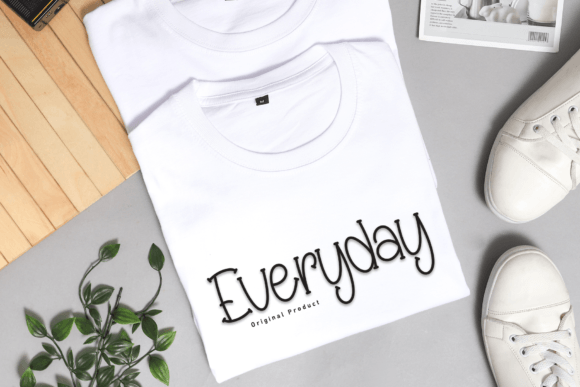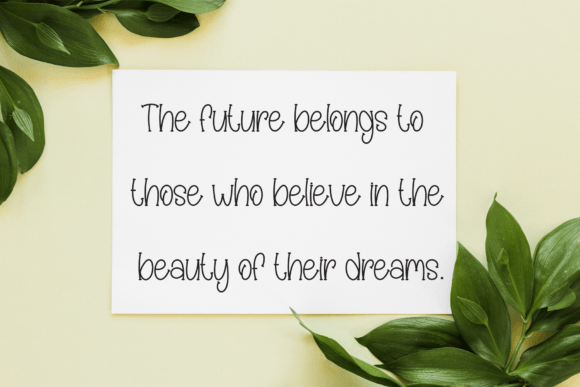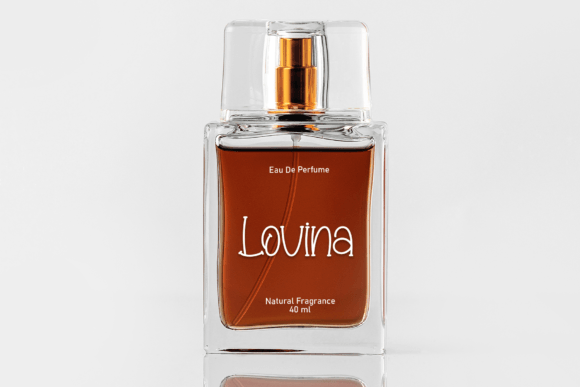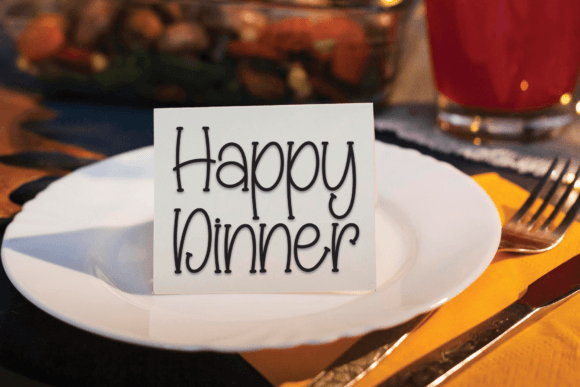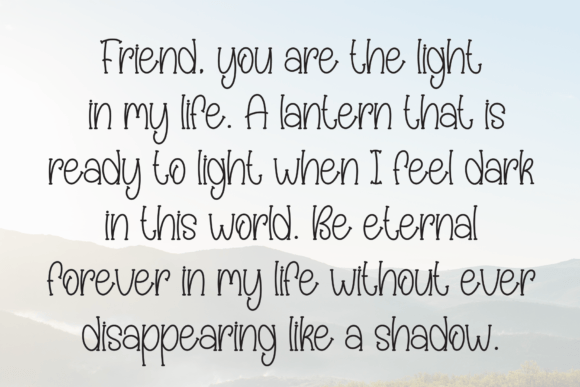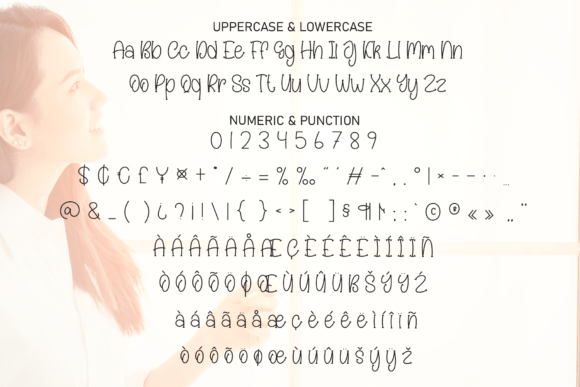
Introducing Happy Sunmory Font: The Perfect Casual Handwritten Font for Your Designs
Are you looking for a font that can add a personal touch to your designs? Do you want to create a warm and friendly vibe that resonates with your audience? Look no further than the Happy Sunmory Font, specifically the delightful Hello Carmila font. This casual handwritten font is designed to capture a relaxed and friendly atmosphere, making it perfect for personal projects, social media, and invitations.
The Charm of Hello Carmila
Hello Carmila is a beautiful, casual handwritten font that boasts natural, flowing strokes. Its effortless style adds a charming touch to any design, making it ideal for designers and crafters who want to create a warm and authentic feel. The font’s easygoing style is perfect for a variety of design projects, from social media graphics to invitations, and even personal blogs.
Key Features of Happy Sunmory Font
- Casual and Handwritten: Hello Carmila is a casual handwritten font that mimics the natural flow of handwriting, giving your designs a personal and approachable feel.
- Relaxed and Friendly Vibe: The font’s relaxed and friendly vibe makes it perfect for designs that require a warm and inviting atmosphere.
- Ideal for Personal Projects: Whether you’re working on a personal blog, social media graphics, or invitations, Hello Carmila is the perfect font to add a personal touch.
- Easy to Read: The font’s clear and flowing strokes make it easy to read, even at smaller sizes.
Uses for Happy Sunmory Font
Hello Carmila is a versatile font that can be used for a variety of design projects, including:
- Social Media Graphics: Add a personal touch to your social media graphics, such as Instagram posts, Facebook updates, and Twitter headers.
- Invitations: Create beautiful and inviting invitations for special occasions, such as weddings, birthday parties, and baby showers.
- Personal Blogs: Add a warm and friendly touch to your personal blog, making it more inviting and engaging for your readers.
- Crafting and DIY Projects: Use Hello Carmila to add a personal touch to your crafting and DIY projects, such as handmade cards, gift tags, and scrapbooking.
Why Choose Happy Sunmory Font?
There are many fonts available that can add a personal touch to your designs, but Hello Carmila stands out from the rest. Here are just a few reasons why:
- Unique and Authentic: Hello Carmila has a unique and authentic feel that sets it apart from other fonts.
- High-Quality: Hello Carmila is a high-quality font that is designed to produce clear and crisp results, even at smaller sizes.
If you’re looking for a font that can add a personal touch to your designs, look no further than the Happy Sunmory Font, specifically the delightful Hello Carmila font. Its casual and handwritten style, combined with its relaxed and friendly vibe, make it perfect for a variety of design projects. Whether you’re working on a personal project, social media graphics, or invitations, Hello Carmila is the perfect font to add a warm and authentic feel.